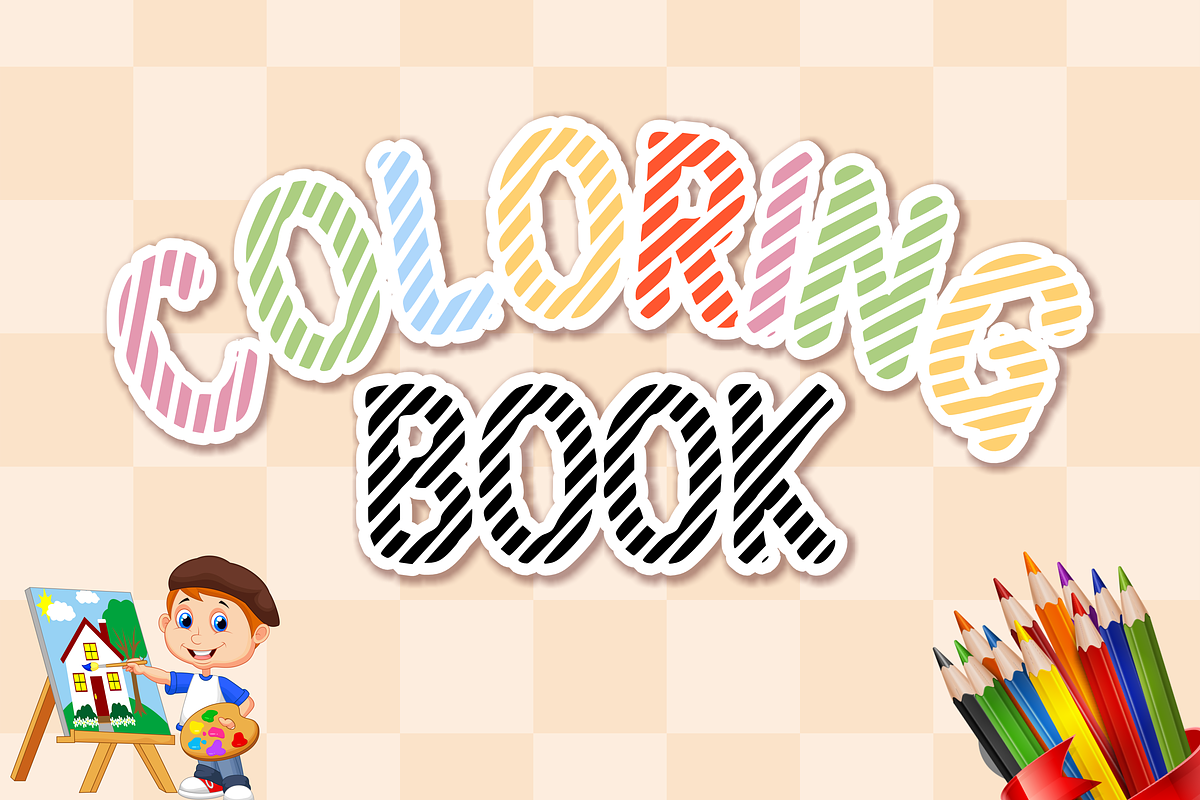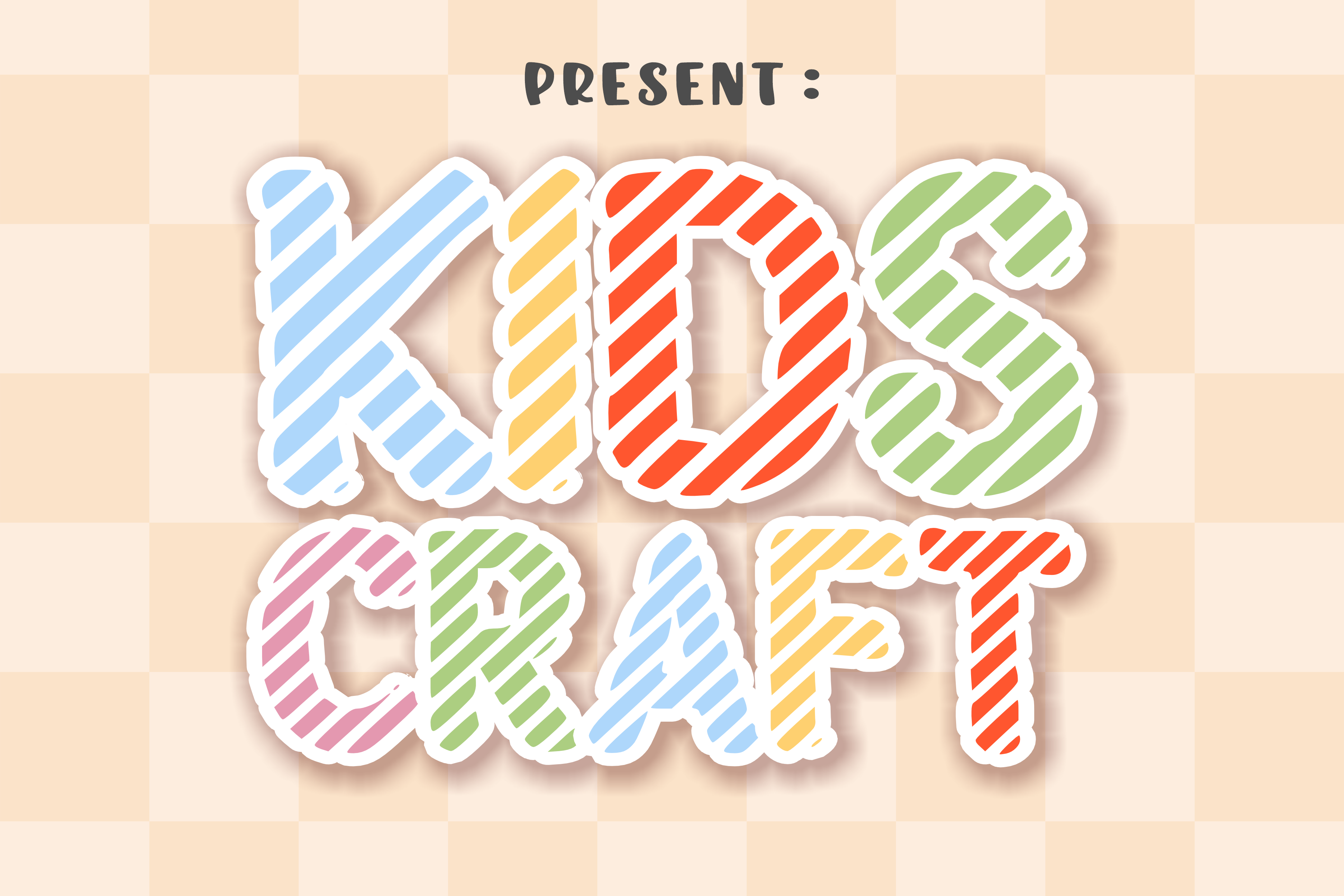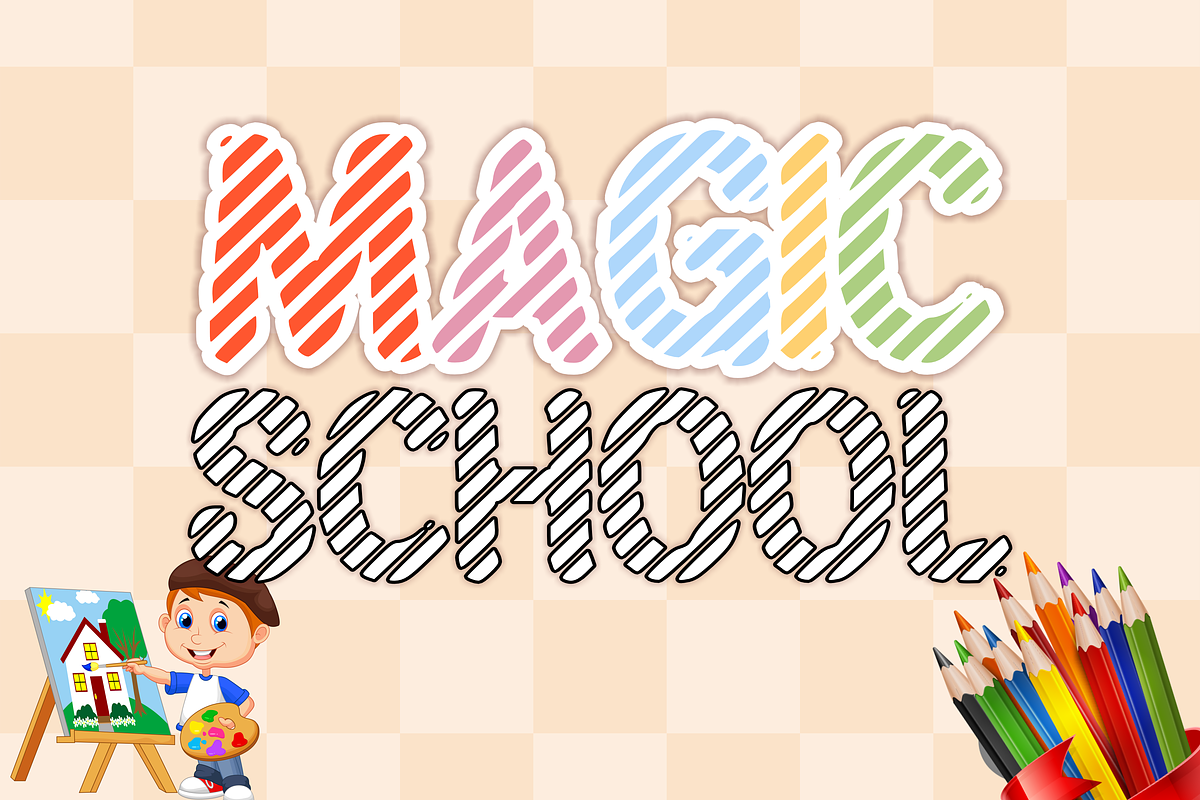
Kids Craft - Kids Font Types
Kids Craft is a beautiful font that brings fun and imagination to your projects. With its striped style and look and many colors, this font offers hope for a variety of creative endeavors. Let this font add a pop of color and aesthetic elements to your designs, suitable for everything from posters, stickers, t-shirts, comics, books, movies, product labels, children’s designs, and more.